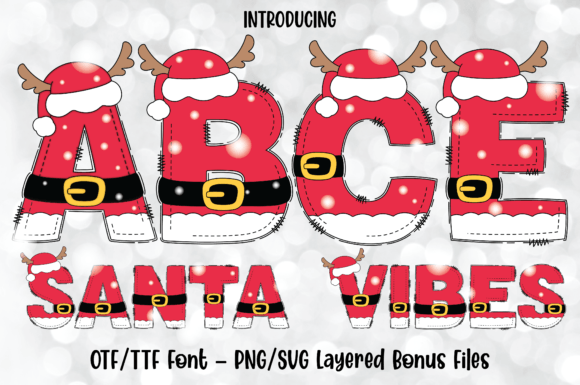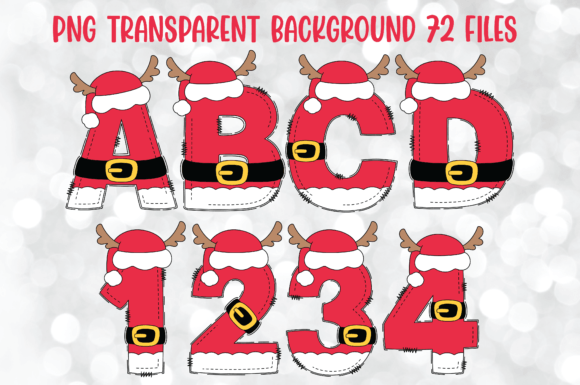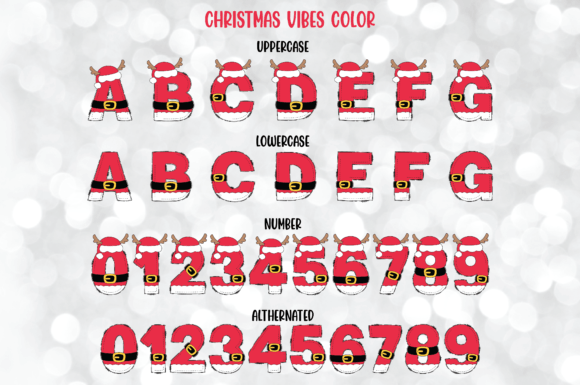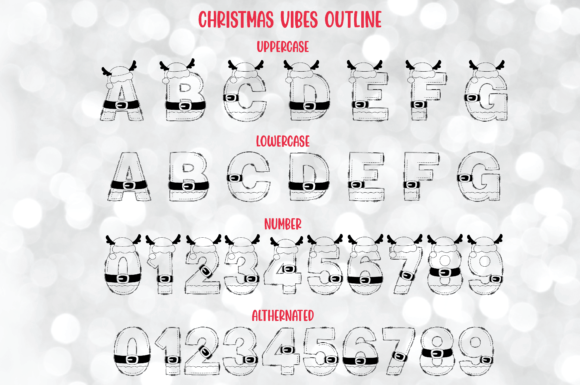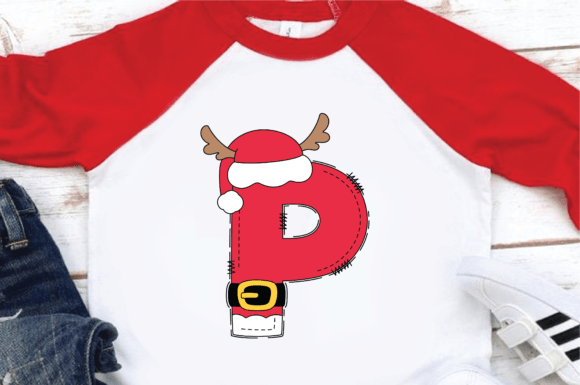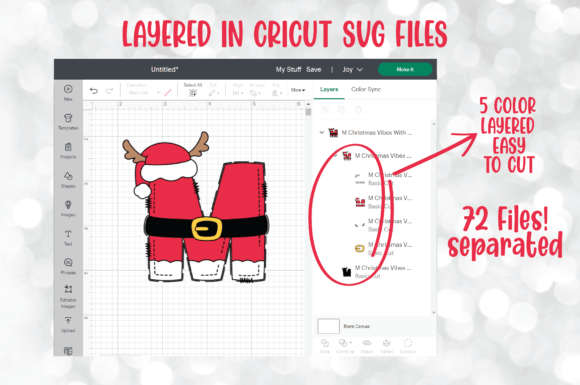
Santa Vibes Font
Santa Vibes comes with color and outline family font. Super cute and festive alphabet for your project. Easy to create a magic title. When you want a letter with a Santa hat just type uppercase and basic Santa suit you can type lowercase.